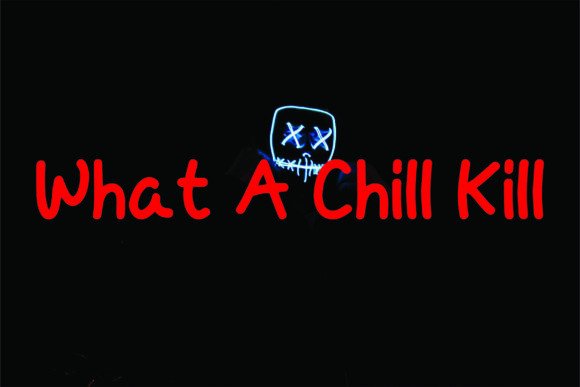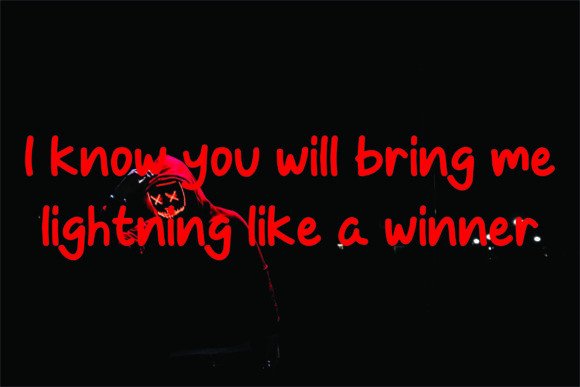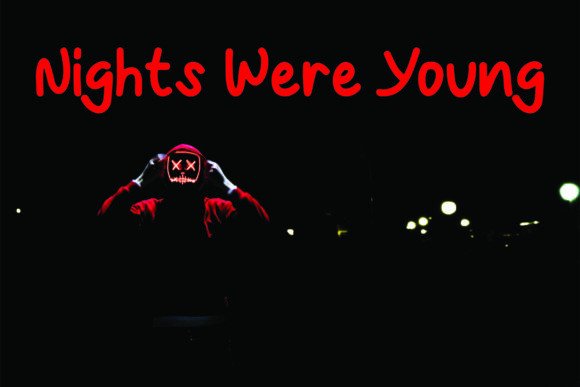
Introduction to Chill Kill Font
Chill Kill is a sweet and friendly handwritten font.
Its natural and unique style makes it a great fit for large design collections The only limit is your imagination.
Key Features of Chill Kill Font
Why Choose Chill Kill Font?